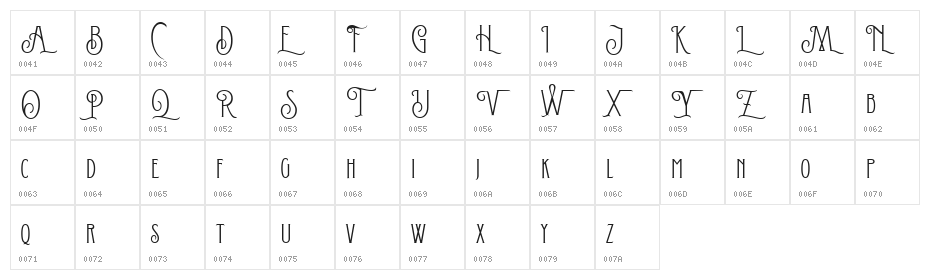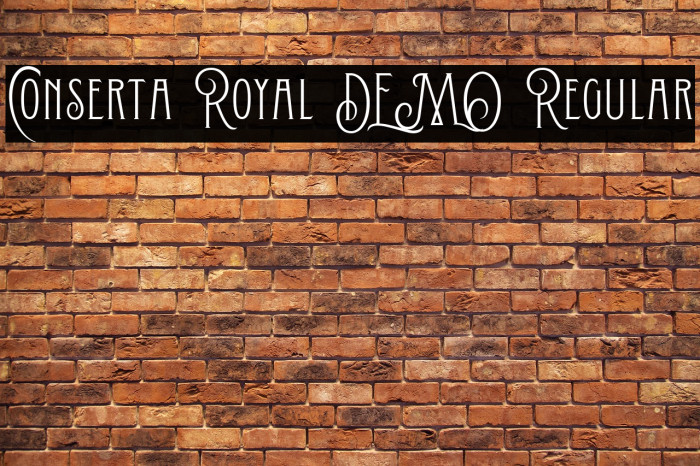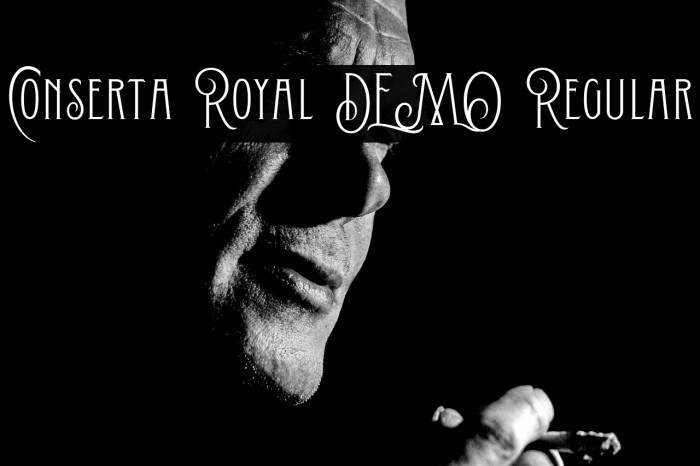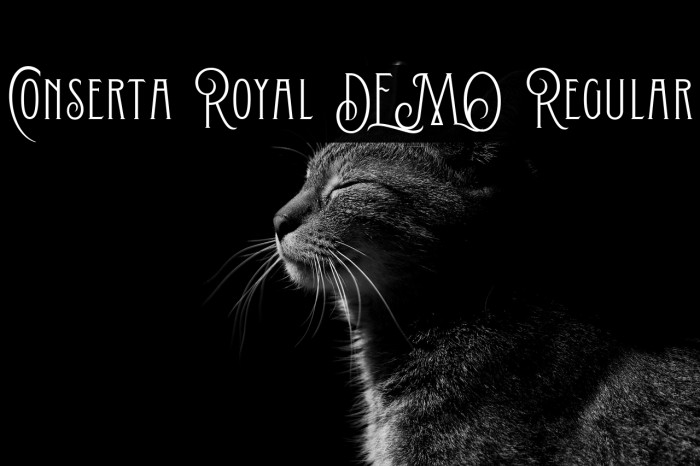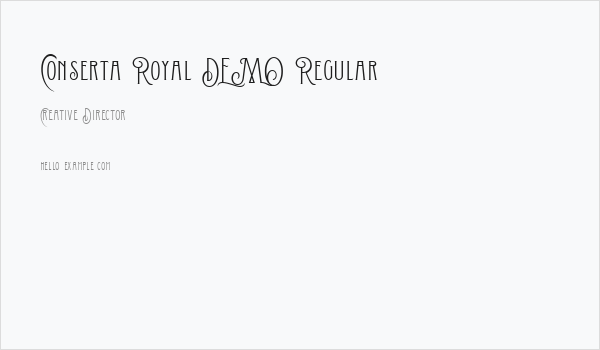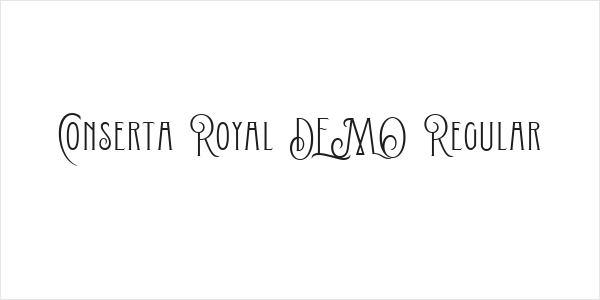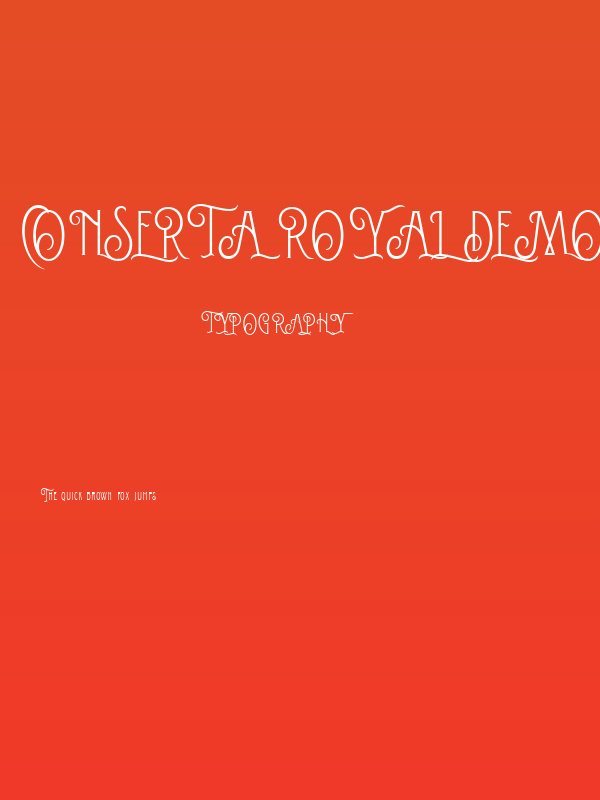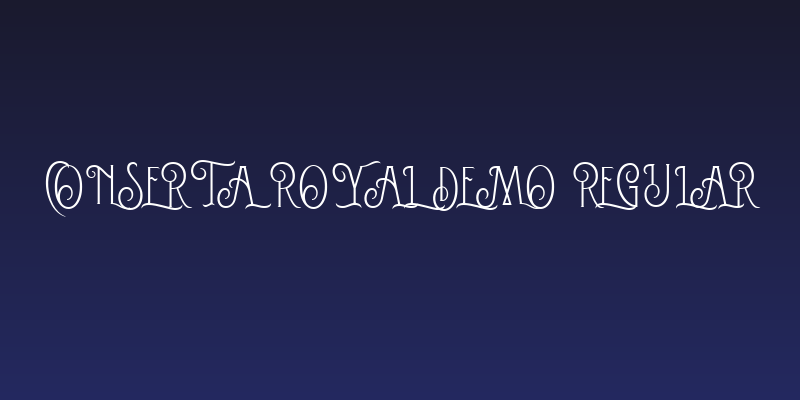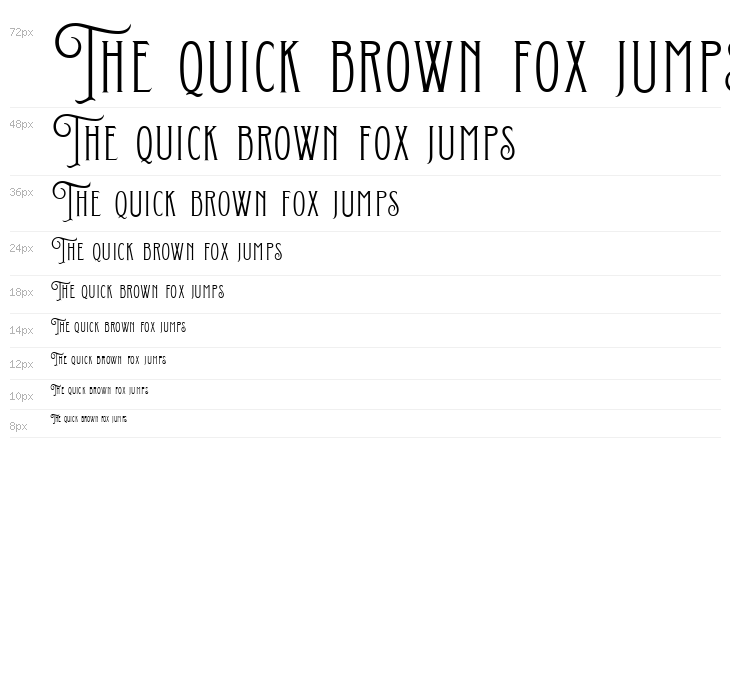
Conserta Royal DEMO Regular Font
Conserta Royal DEMO Regular Description
This font features a decorative and ornate style, characterized by its intricate swirls and flourishes that embellish each letter. The uppercase letters are particularly elaborate, with extended curves and loops that give a sense of elegance and sophistication. The lowercase letters maintain a more straightforward design but still carry subtle decorative elements that complement the uppercase set. The numerals and special characters are designed with a similar flair, ensuring a cohesive look across all characters. This font is ideal for projects that require a touch of luxury and refinement, such as invitations, branding, and high-end product packaging.
| Proposed Projects | Ideal for wedding invitations, luxury branding, and elegant packaging designs. |